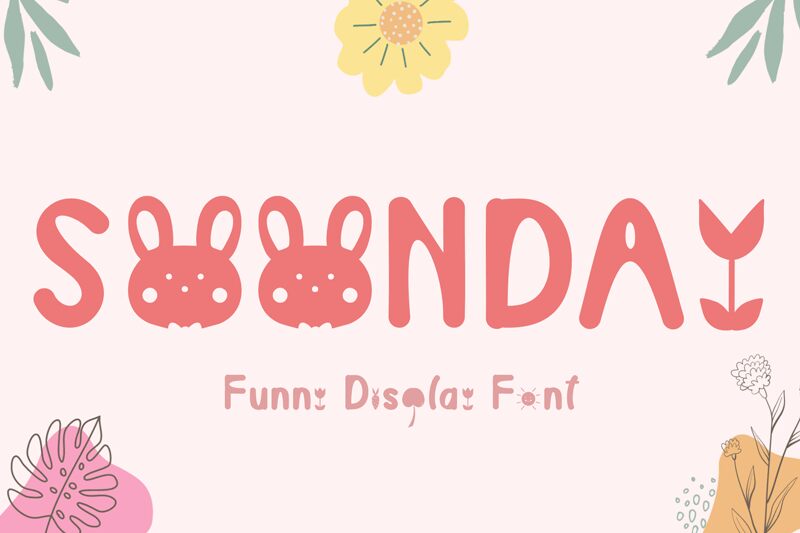
Soonday font is a decorative and whimsical typeface crafted by Yoga Letter. This free font is perfect for those seeking a unique and creative touch to their projects. It showcases a playful, childlike, and contemporary design that is both friendly and imaginative, making it exceptionally versatile for various artistic endeavors.
The informal and illustrative nature of Soonday makes it suitable for use in children’s books, comic books, posters, packaging design, branding projects, and advertising. It's a great choice for greeting cards, playful artwork, invitations, social media content, and any project that requires a lively and engaging visual element.